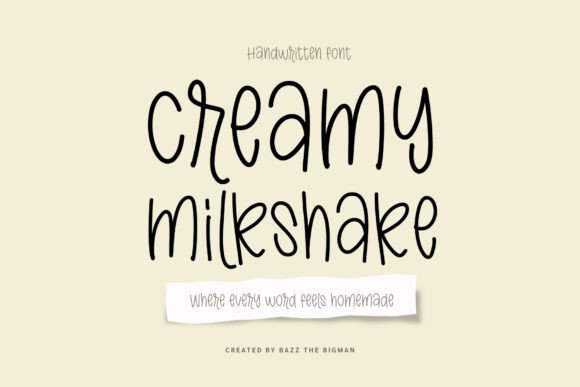
Discover the Sweet Charm of the Creamy Milkshake Font
Have you ever sat down with a cold glass of milk and a favorite dessert, feeling the joy of a simple pleasure? For designers, capturing that same warmth and comfort in their creative work can be a challenge. That’s where the Creamy Milkshake Font comes in – a delightful handwritten font that exudes the charm of homemade delights.
This enchanting font effortlessly crafts intimate and heartwarming designs, making it perfect for a wide range of projects. Whether you’re creating café menus, stickers, greeting cards, or digitized planners, the Creamy Milkshake Font adds a personal touch that’s sure to captivate your audience. Its versatility and soft, artisanal allure make it a valuable addition to any designer’s toolkit.
Creamy Milkshake Font Key Features
- Font Family: Creamy Milkshake Font is a unique, hand-drawn script font.
- Unique Characteristics: Features a smooth, creamy texture and a playful, handwritten feel.
Designer Review: Creamy Milkshake Font
Overall, I was excited to dive into the Creamy Milkshake Font. It’s a playful, whimsical font that screams “ice cream” or “summer vibes” – and I love it! ✨ The font’s curvy lines and rounded edges create a friendly, approachable feel that’s perfect for a brand looking to convey a sense of fun and approachability.
One of the standout features of Creamy Milkshake is its versatility. It works well in both uppercase and lowercase formats, and can be easily styled to fit a variety of design contexts. ✨ I also appreciate the font’s compatibility with a range of devices and screen sizes – it’s a breeze to use in digital applications.
However, there are a few limitations to consider. ⚠️ The font’s bold weights can feel a bit clumsy, and may not be suitable for all design applications. Additionally, the font’s overall feel can be a bit too “childish” for more serious or professional brands.
- Works well in digital applications
- Versatile and compatible with a range of devices and screen sizes
- Perfect for brands looking to convey a sense of fun and approachability
Overall, I’d give the Creamy Milkshake Font 4 out of 5 stars. It’s a solid choice for brands looking to add a playful touch to their design, but may not be the best fit for more serious or professional applications.
The Creamy Milkshake Font is ideal for:
- Children’s product design
- Summer-themed designs